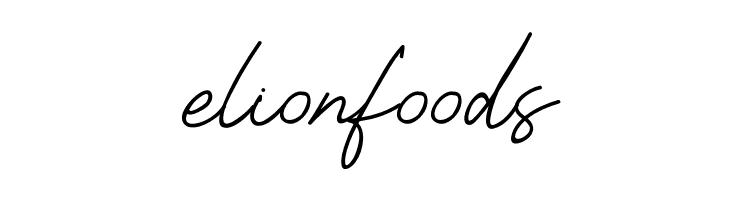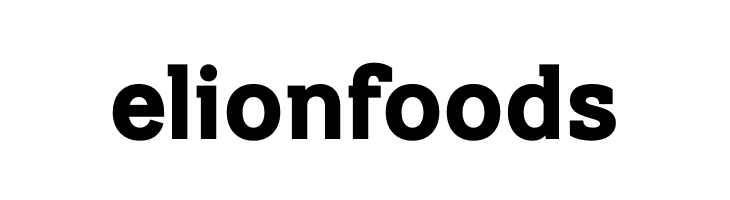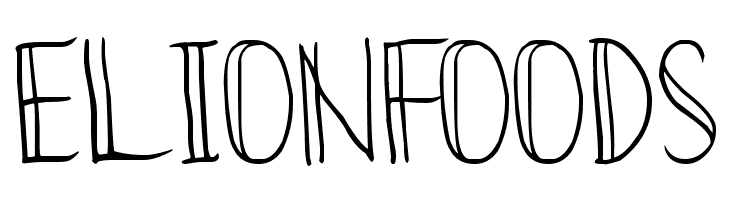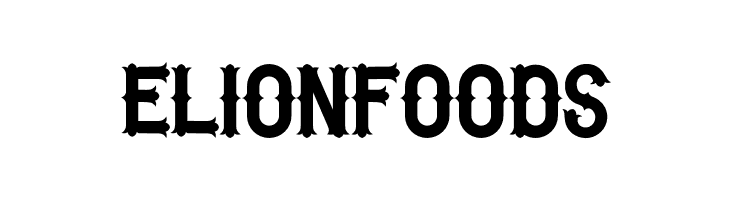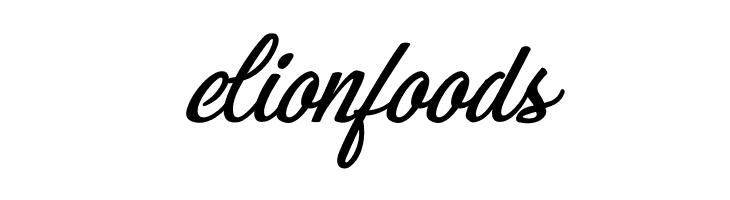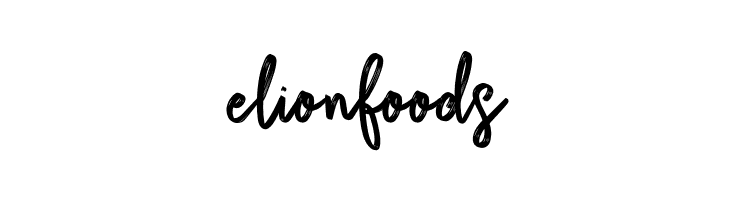
A playful and bold font with whimsical, heart-accented characters.
A graceful and flowing script font with a handwritten style.
A lively script font with a fluid, handwritten style and moderate stroke contrast.
( bike chain )
A bold, industrial font inspired by bicycle chains with a rugged, mechanical look.
A bold, flowing script font with elegant, cursive letterforms.
A playful, handwritten font with tall, narrow letters and a whimsical style.
A flowing, cursive script font with elegant loops and swashes.
A bold, modern sans-serif font with geometric shapes and clean lines.